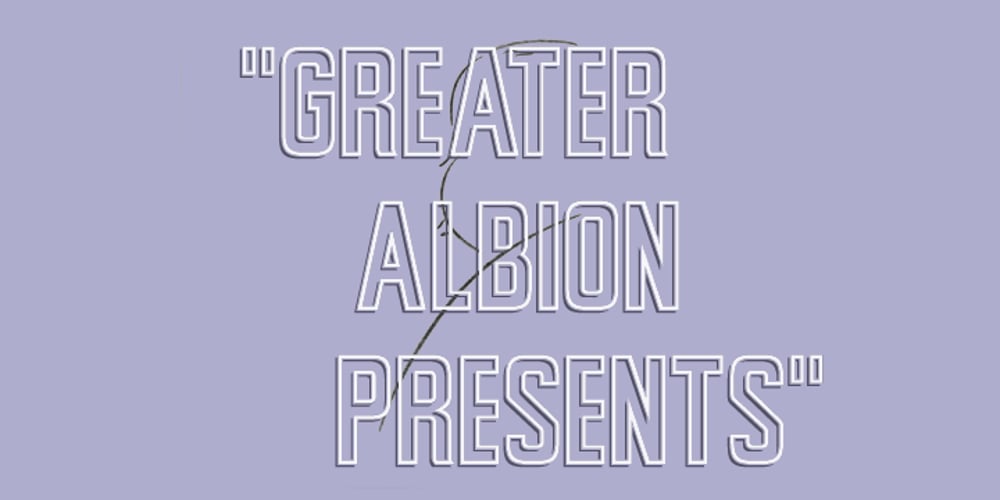
Alfrere Sans Font Family was designed by Paul James Lloyd and published by Greater Albion Typefounders. Alfrere Sans contains 7 styles and family package options. Alfrere Sans is a clean Sans Serif display family inspired by a well-known 1950s television caption. The family of seven faces have been designed for independent use, but they also have an extra feature. All faces have identical metrics and can be overlaid with each other, to yield an unending range of multi-colored lettering effects. Bring a touch of the 50’s to your next poster design. Better yet, explore the world of multi-colored overlaid typefaces….